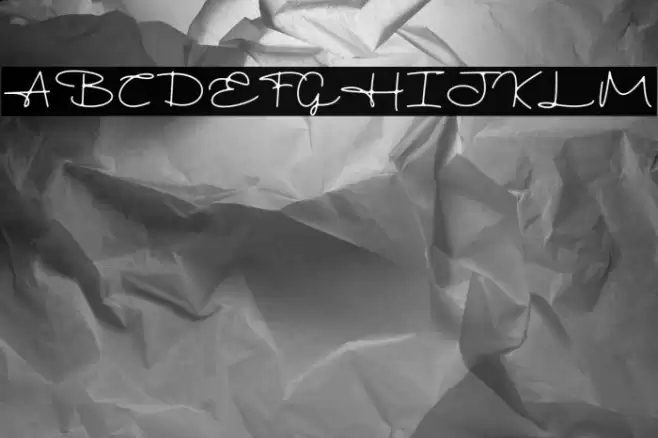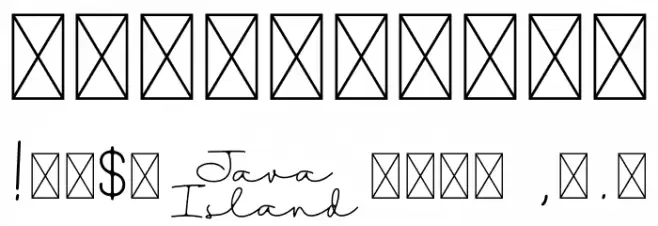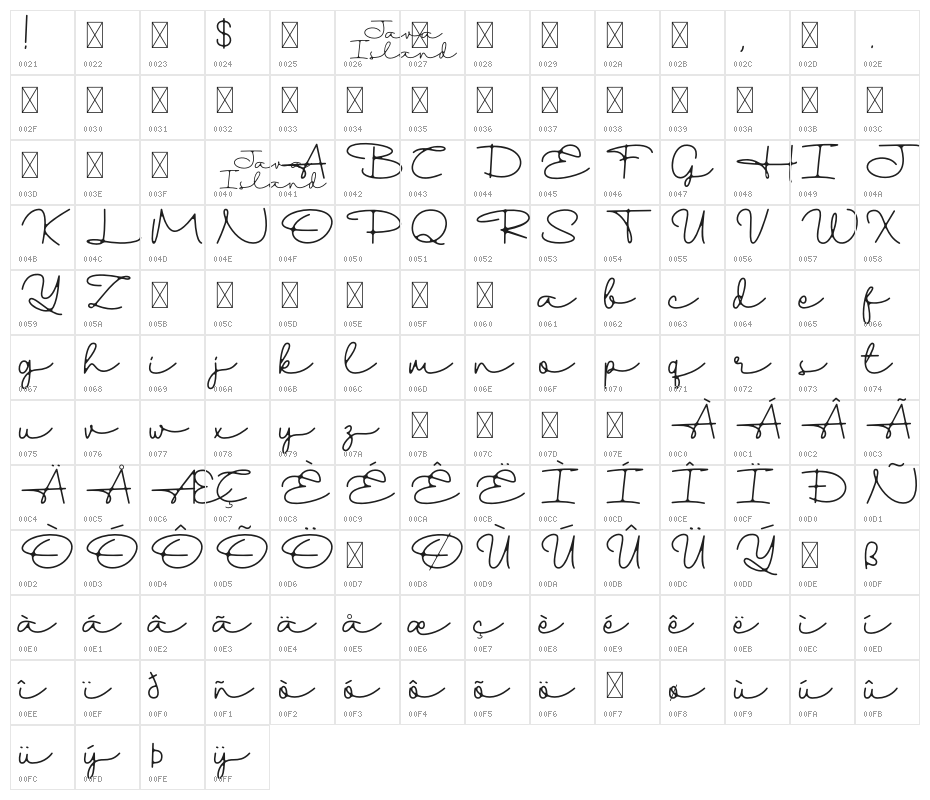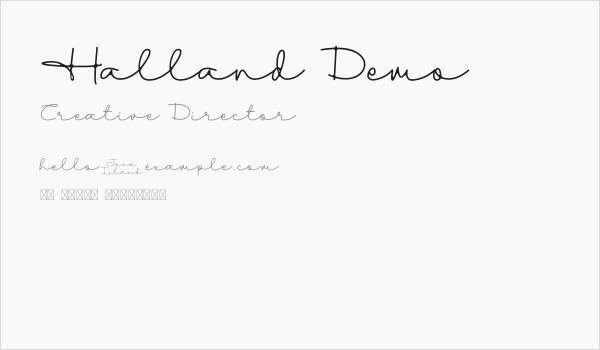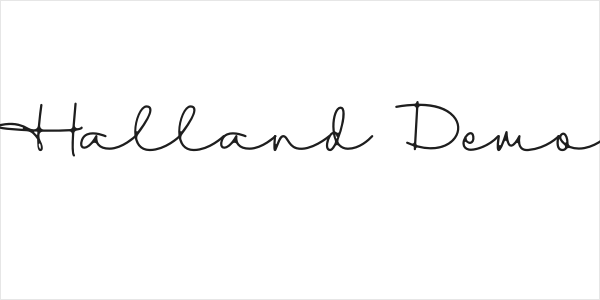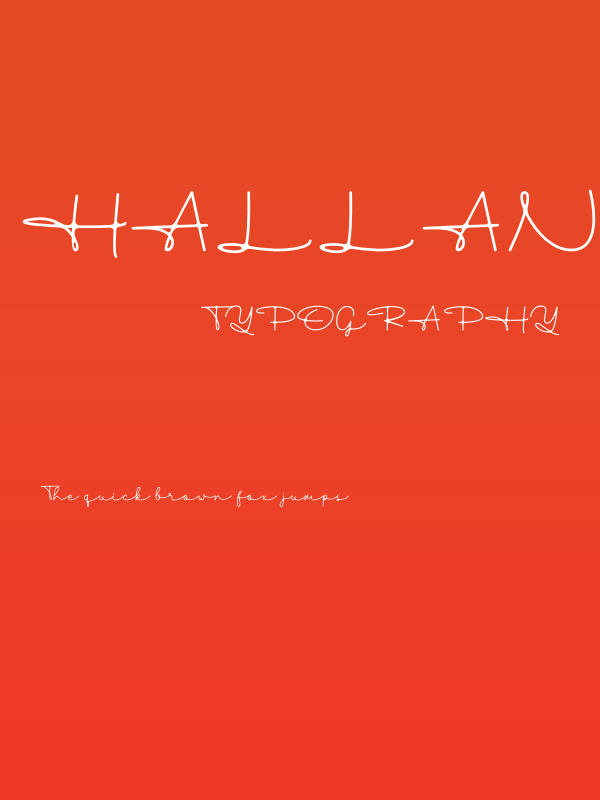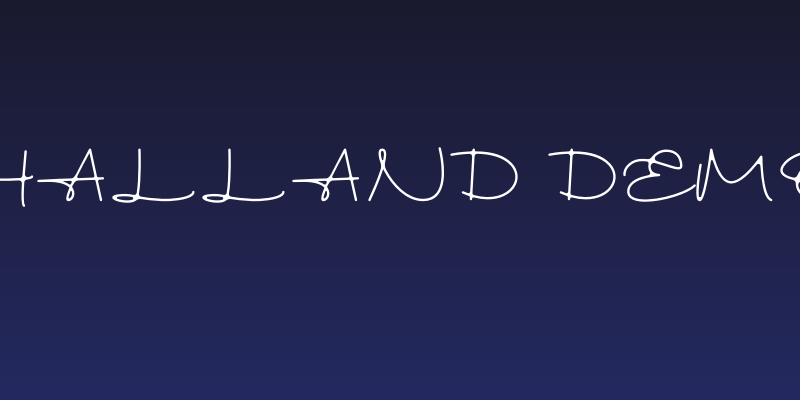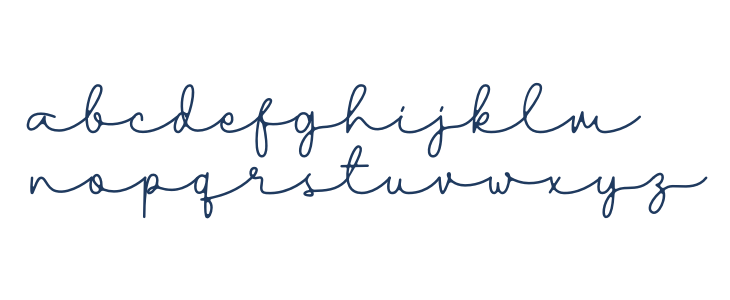
Halland Demo Font
Halland Demo Description
This font features a delicate and flowing script style, characterized by its elegant and cursive letterforms. The uppercase letters are slightly more structured, yet maintain a fluidity that complements the lowercase characters. The lowercase letters exhibit a smooth, continuous stroke, enhancing the handwritten appearance. The overall design is airy and light, with a sense of movement and grace. The font's thin lines and gentle curves make it suitable for projects that require a personal and sophisticated touch. Its aesthetic is both modern and timeless, making it versatile for various design applications.
A delicate, flowing script font with elegant cursive letterforms from Uncategorized fonts.
- Font: Halland Demo
- Proposed Projects: Ideal for wedding invitations, personal branding, greeting cards, and elegant packaging designs.
- Weight: Light
- Overall Style: Elegant, Handwritten
- Use Case: Logos, Invitations, Personal Branding